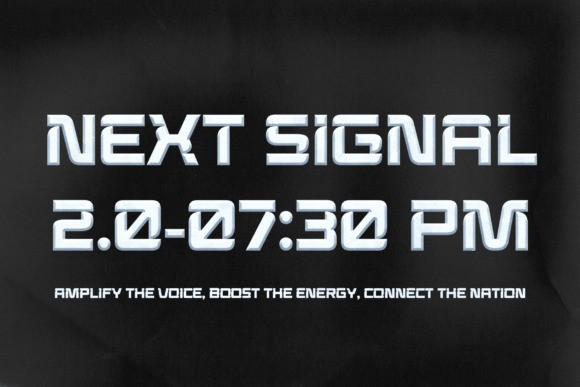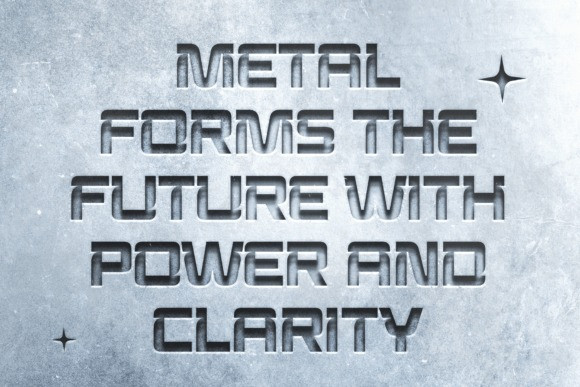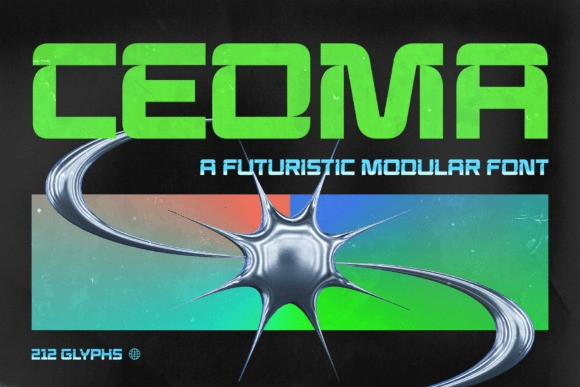
Ceoma Font
Ceoma Font an ultra-modern, futuristic modular font engineered for cutting-edge design. Built from bold, heavy blocks with precise architectural inner cuts, this typeface channels an unmistakable Y2K aesthetic, industrial scifi vibe, and contemporary tech wave. Its wide, low-profile stance and capsule-like geometry give headings an immediate look of technical precision and raw kinetic energy.
Ceoma gives you total creative control across various character variations. It is an absolute powerhouse choice for futuristic gaming interfaces, electronic music poster artwork, sci-fi book titles, tech-wear apparel branding, high-concept packaging, and cybernetic logo designs. Command attention and fast-forward your digital layouts into the future.